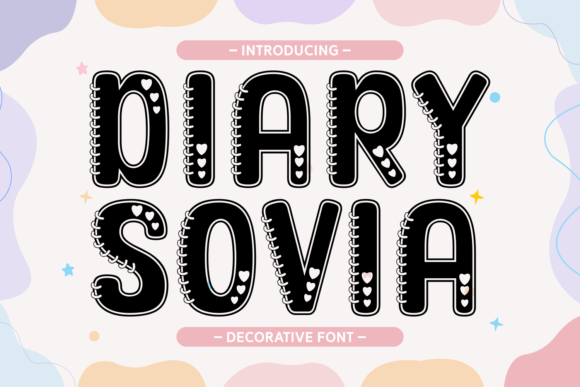
Introducing Diary Sovia Font: Elevate Your Designs with Elegance and Style
This eye-catching decorative font is perfect for any design project! With its intricate lines and bold characters, Diary Sovia font adds a touch of elegance and style to any project. Whether you’re a designer, crafter, or DIY enthusiast, this stunning font is sure to take your creative endeavors to the next level.
What is Diary Sovia Font?
Diary Sovia font is a unique and decorative typeface that features intricate lines, bold characters, and a distinctive flair. Its elegant and stylish design makes it perfect for a wide range of projects, from crafting and scrapbooking to graphic design and digital art.
Key Features of Diary Sovia Font
- Intricate Lines: Diary Sovia font features intricate lines that add a touch of sophistication and elegance to any project.
- Bold Characters: The font’s bold characters make it perfect for headlines, titles, and other design elements that require a strong visual impact.
- Unique Flair: Diary Sovia font has a distinctive flair that sets it apart from other decorative fonts.
Uses for Diary Sovia Font
Diary Sovia font is versatile and can be used for a wide range of projects, including:
- Scrapbooking: Add a touch of elegance and style to your scrapbook pages with Diary Sovia font.
- Graphic Design: Use Diary Sovia font to create stunning graphic designs, including brochures, flyers, and posters.
- Digital Art: Add Diary Sovia font to your digital art projects, such as illustrations, paintings, and mixed media art.
- Crafting: Use Diary Sovia font to create beautiful handmade cards, gift tags, and other craft projects.
Tips for Using Diary Sovia Font
Here are some tips for getting the most out of Diary Sovia font:
- Experiment with Colors: Try pairing Diary Sovia font with different colors and textures to create unique and eye-catching designs.
- Mix and Match: Combine Diary Sovia font with other fonts and design elements to create interesting and dynamic compositions.
- Pay Attention to Size: Make sure to adjust the size of Diary Sovia font to suit your project’s needs.
Diary Sovia font is a stunning decorative font that adds a touch of elegance and style to any design project. With its intricate lines, bold characters, and unique flair, it’s perfect for designers, crafters, and DIY enthusiasts looking to elevate their creative endeavors. Download Diary Sovia font today and take your designs to the next level!